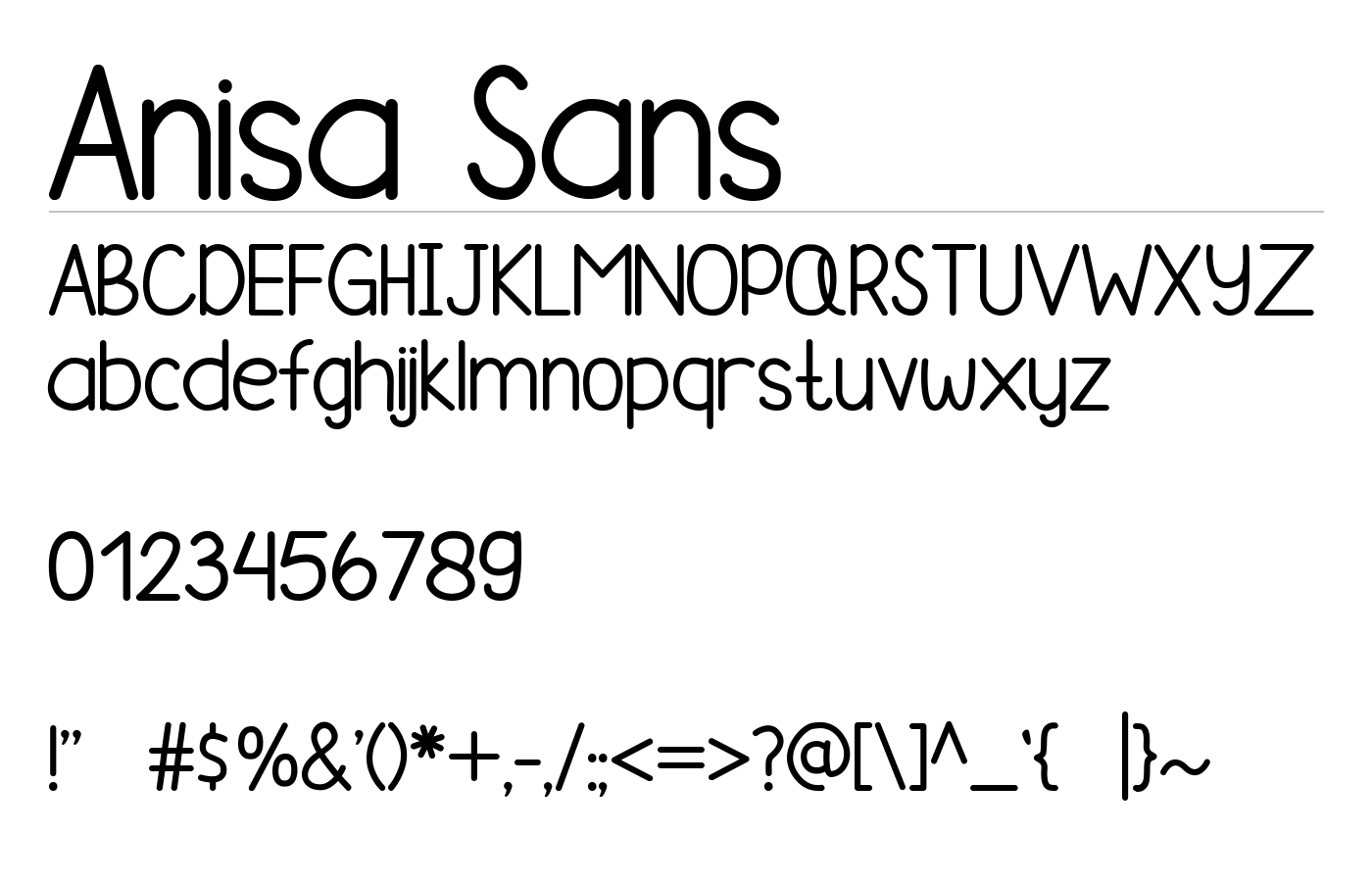
Anisa Sans is a playful and modern sans serif font characterized by its thin strokes, tall x-height, and slightly rounded terminals, giving it a friendly yet sophisticated feel. Its slender, open letterforms and distinctive details, such as the single-story lowercase 'a' and quirky, gently curved shapes, make it ideal for creative and casual branding, editorial headlines, and web use where a unique but approachable look is desired. This font works well in designs that seek a clean, contemporary aesthetic with a touch of personality.
Anisa Sans Font
About Anisa Sans Font
| Font family | Anisa Sans Font |
| Designer | Nur Anisa Dwi Anggita |